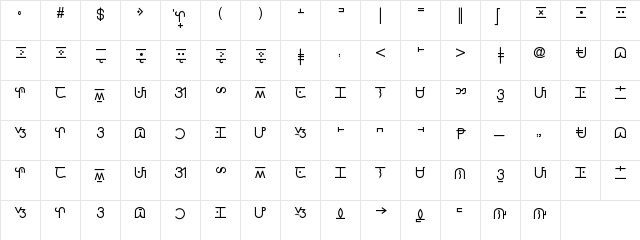
Guhit Baybayin Regular
Design Context for Guhit Baybayin Typeface
Guhit Baybayin offers clean, dependable letterforms without strong stylistic allegiance, making it a practical choice for designers who need flexibility.